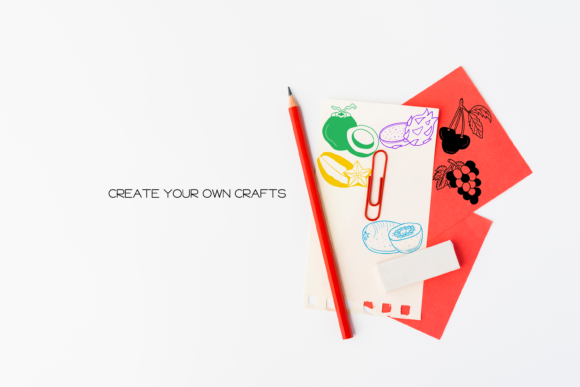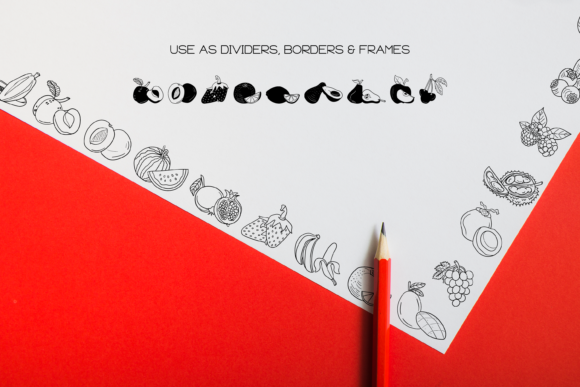
The Fruits Font
The Fruits dingbats font is a delightful and charming font that features 52 hand-drawn doodles of various fruits. Here are some reasons why this font can be a valuable addition to your creative projects:
1. Playful and Whimsical Style: The hand-drawn nature of The Fruits font gives it a playful and whimsical character. The doodles capture the essence of different fruits with their organic lines and charming details. This style can bring a sense of joy and lightheartedness to your designs, making them visually appealing and engaging.
2. Versatility: With 52 different fruit doodles to choose from, The Fruits font offers a wide range of options for your creative projects. Whether you’re designing food menus, recipe cards, kitchen labels, or even fruit-themed illustrations, this font provides you with a variety of fruits to work with. You can mix and match the doodles to create delightful compositions and bring a vibrant touch to your designs.
3. Food-related Projects: The Fruits font is particularly well-suited for food-related projects, especially menus and kitchen crafting projects. You can use the fruit doodles as decorative elements, borders, or dividers to enhance your menu designs and make them visually appealing. The hand-drawn style adds a personal and artisanal touch to your food-related creations, making them stand out.
4. Natural and Fresh Vibes: Fruits are often associated with freshness, health, and nature. By incorporating The Fruits font into your designs, you can evoke these qualities and create a sense of vitality and abundance. This makes the font a great choice for projects related to healthy eating, natural products, farmers markets, or any design that aims to convey a fresh and wholesome atmosphere.
5. Easy Integration: The Fruits dingbats font can be easily integrated into your design process. Each fruit corresponds to a specific glyph in the font, allowing for convenient access within your design software. This makes it effortless to incorporate the fruit doodles into your artwork, saving you time and effort compared to manual drawing.
In summary, The Fruits dingbats font is a unique and cute collection of hand-drawn fruit doodles that can add a playful and whimsical touch to your designs. Whether you’re working on food menus, kitchen crafting projects, or any creative endeavor that involves fruits, this font provides a versatile and user-friendly toolset. By leveraging the delightful style and variety of The Fruits font, you can enhance your designs and bring a vibrant and fresh element to your kitchen-inspired creative projects.